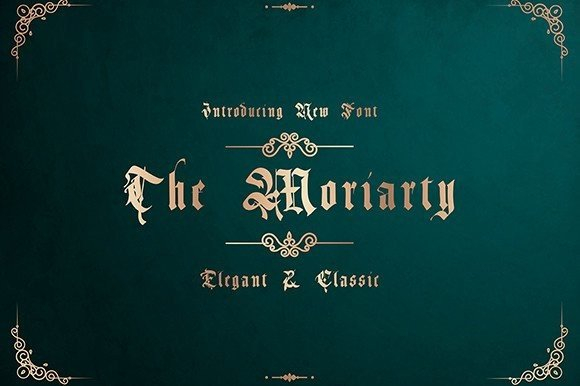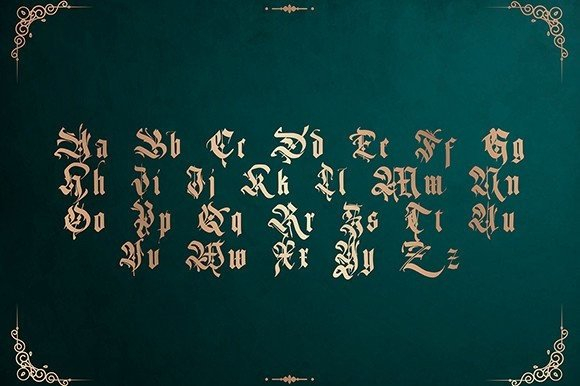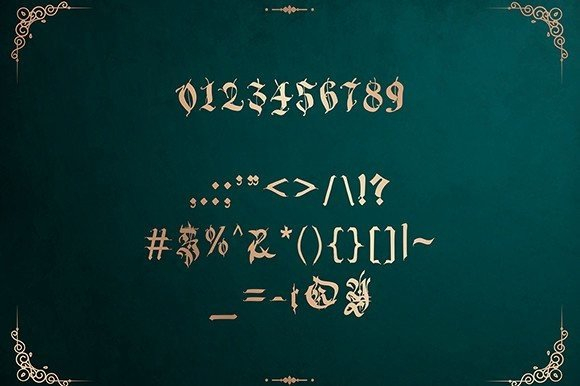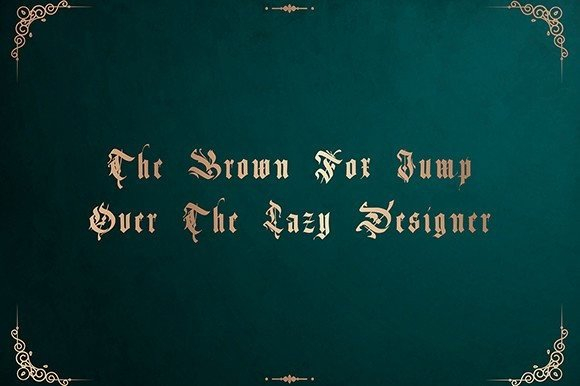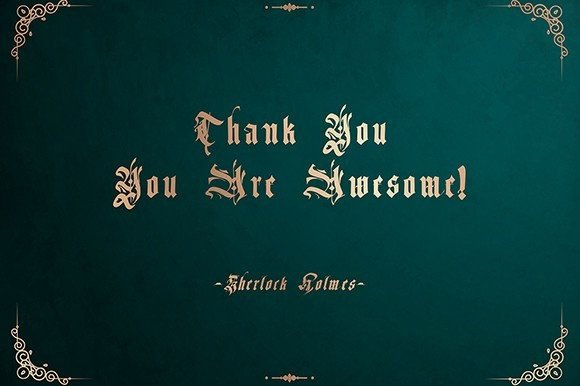
About The Moriarty Font
The Moriarty is a sophisticated and classy font, described by an elegant touch, and is perfect for your favorite projects. Fall in love with its incredibly distinct and timeless style and use it to create spectacular designs!